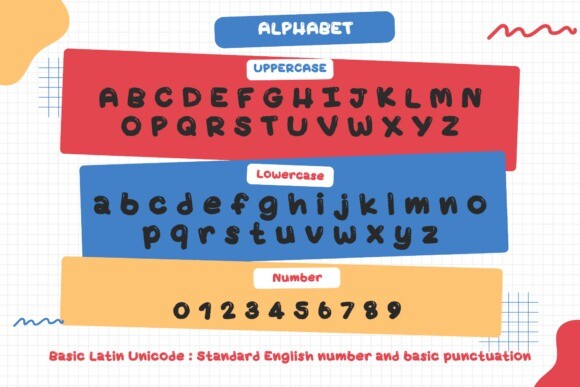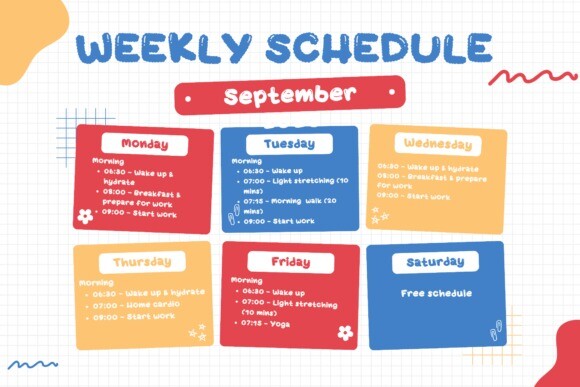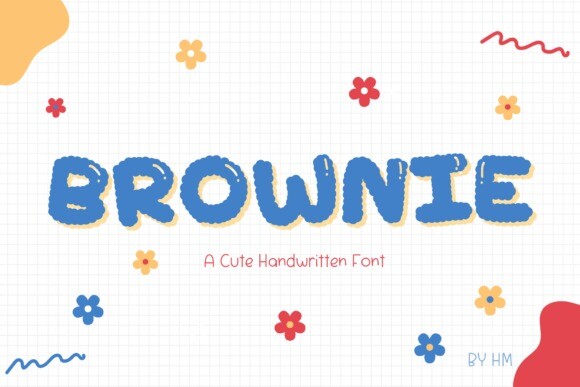
Brownie Display Font
Brownie Display Font – Creative Alphabet Fonts for Festive Designs. Add charm to your festive projects with our unique alphabet fonts! Explore trendy handwritten, display, and decorative styles to elevate your designs.